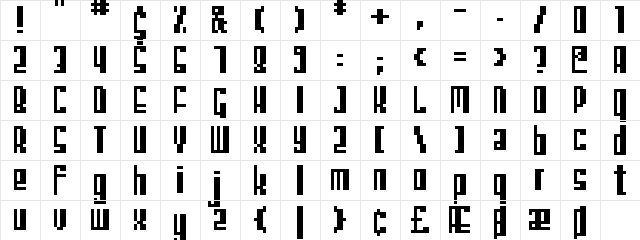
Bromen Bold Regular
Design Context for Bromen Bold Typeface
Bromen Bold takes a measured approach to typography — its balanced proportions and neutral character make it a reliable workhorse for both digital and print work. The heavy weight commands attention and anchors typographic hierarchies.
Pro Tip: Use Bromen Bold in both headline and body roles to test its range before committing to a single application.